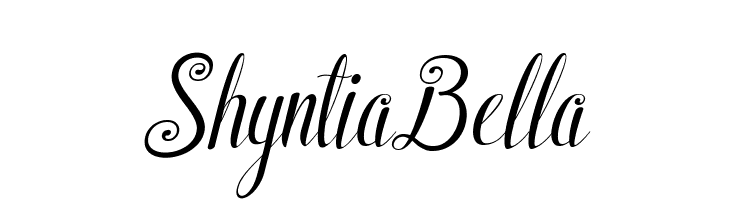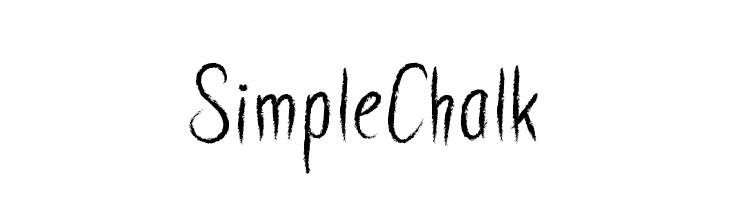
A playful, bold font with irregular, organic shapes and a whimsical feel.
An elegant script font with flowing, decorative swashes and flourishes.
A hand-drawn, chalk-like font with a playful and informal style.
A playful, hand-drawn outline font with a whimsical and decorative style.
A playful and whimsical font with bold, curvy letterforms and decorative swirls.
A playful, hand-drawn font with a textured, sketch-like appearance.
A bold, playful font with rounded, hand-drawn characters.
A playful, bold font with rounded, thick strokes and a hand-drawn feel.
A decorative script font with elegant swirls and high contrast strokes.